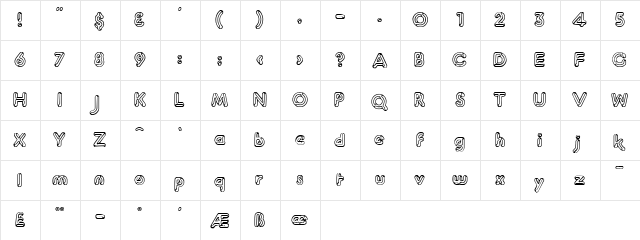
PlutoClaude Outline Regular
Design Context for PlutoClaude Outline Typeface
PlutoClaude Outline brings ornamental detail and strong personality to headlines and identities, where visual impact matters more than quiet functionality.
Font Pairing: Pair with a clean neutral sans-serif for body copy to let PlutoClaude Outline's character lead without overwhelming the composition.
Pro Tip: Use PlutoClaude Outline exclusively at display sizes — it was designed to be seen, not read at length. Let a neutral companion handle body copy.